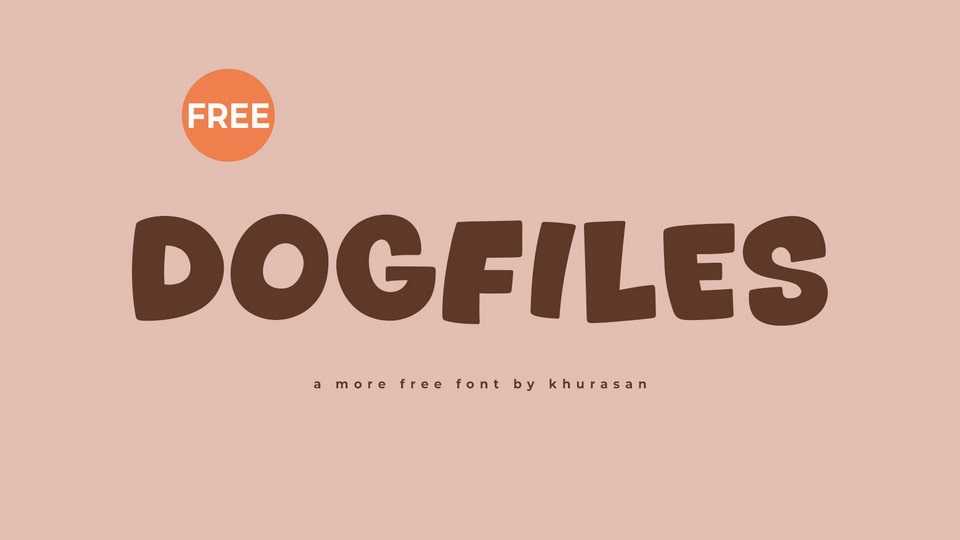
Download Dogfiles font, a bold, playful, and bouncy hand-drawn cartoon typeface that infuses your designs with boundless energy and whimsy. Dogfiles font is crafted with exaggerated proportions and dynamic strokes, evoking the lively spirit of classic cartoons.